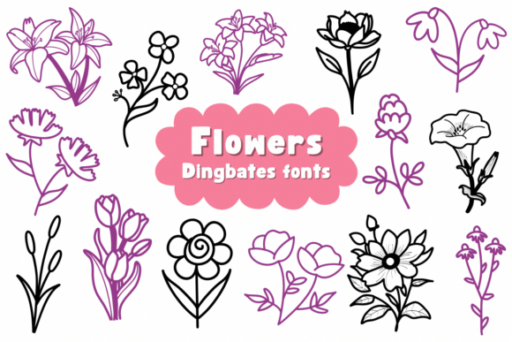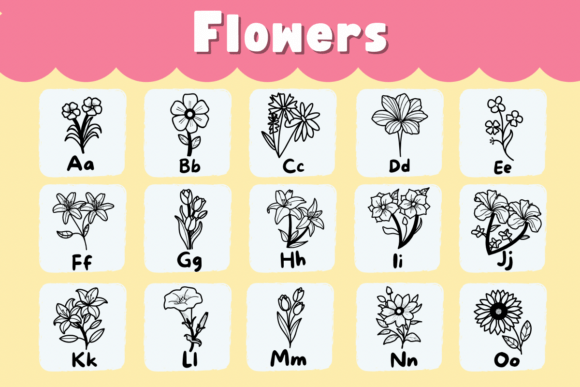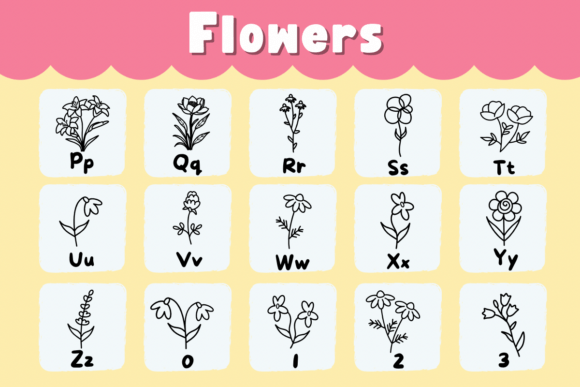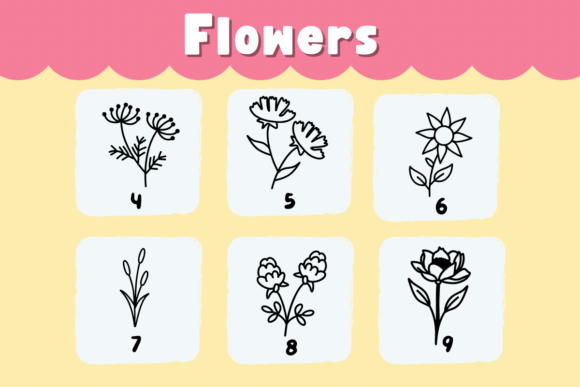
Flowers Font
Flowers Dingbats Font offers a beautiful collection of hand-drawn flower illustrations. Just type a letter, and a detailed flower appears instantly. Use it for craft projects, greeting cards, invitations, packaging, and scrapbooking. Add effortless elegance to any design!
You can use the Flowers Dingbats Font for many creative projects, including:
This font makes adding floral beauty to any project quick and easy!
Flowers Font is a Decorative Fonts font that brings a professional and versatile look to your projects. Flowers Dingbats Font offers a beautiful collection of hand-drawn flower illustrations.